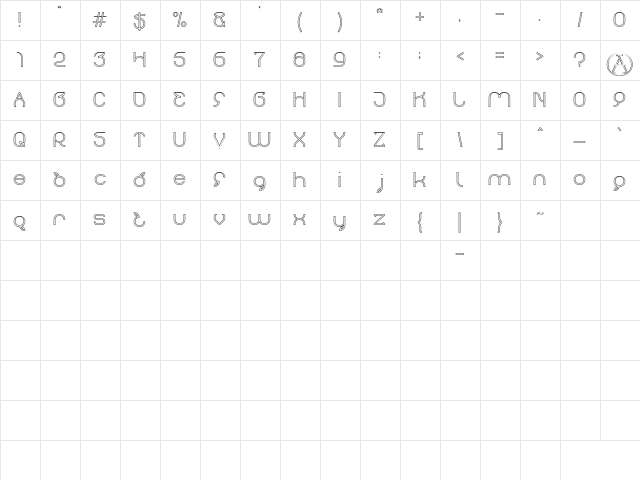
thefotosintesis-Hollow Regular
Design Context for thefotosintesis-Hollow Typeface
thefotosintesis-Hollow is a composed and adaptable typeface that performs quietly and consistently across a wide range of design contexts.